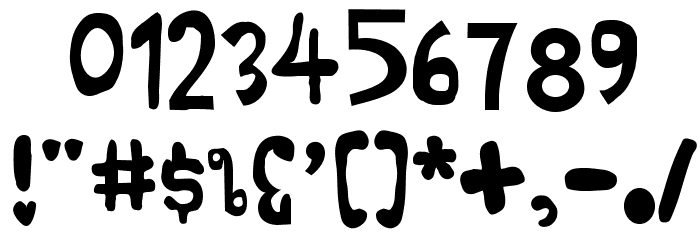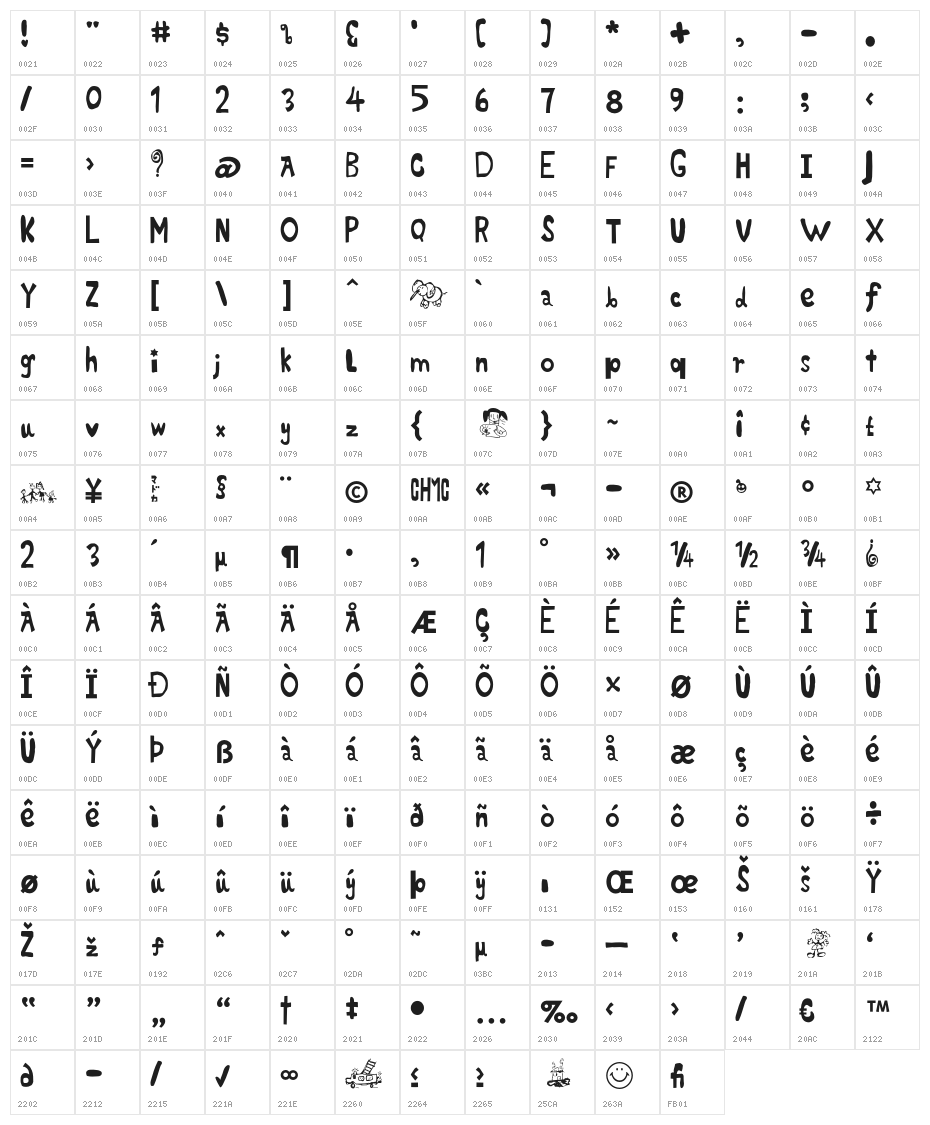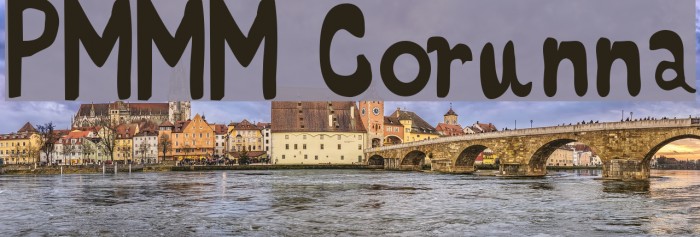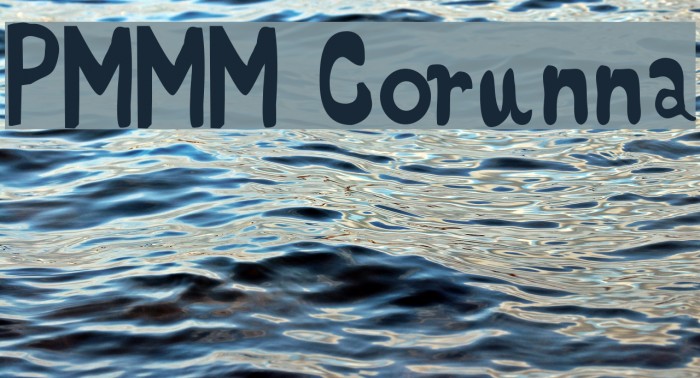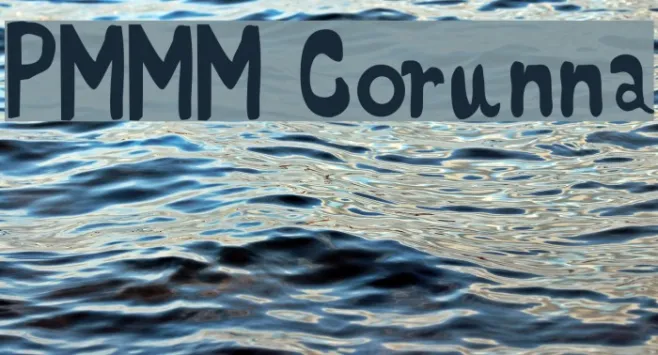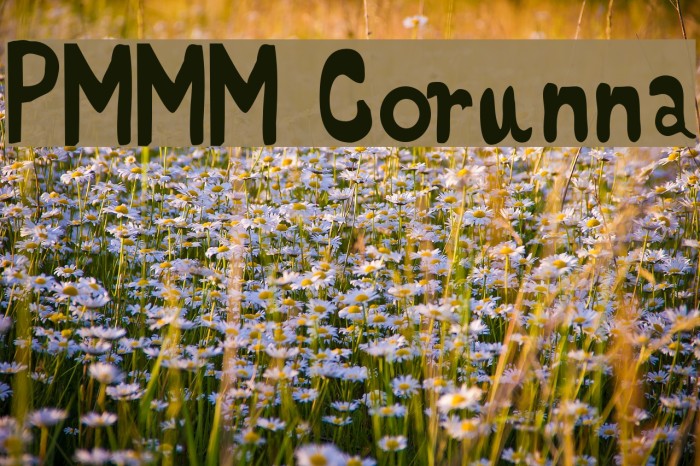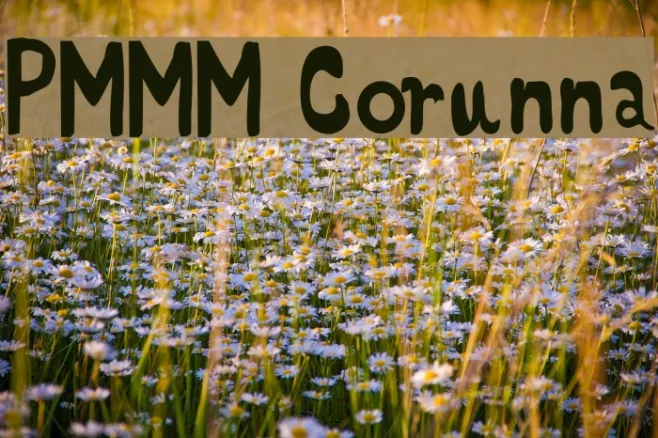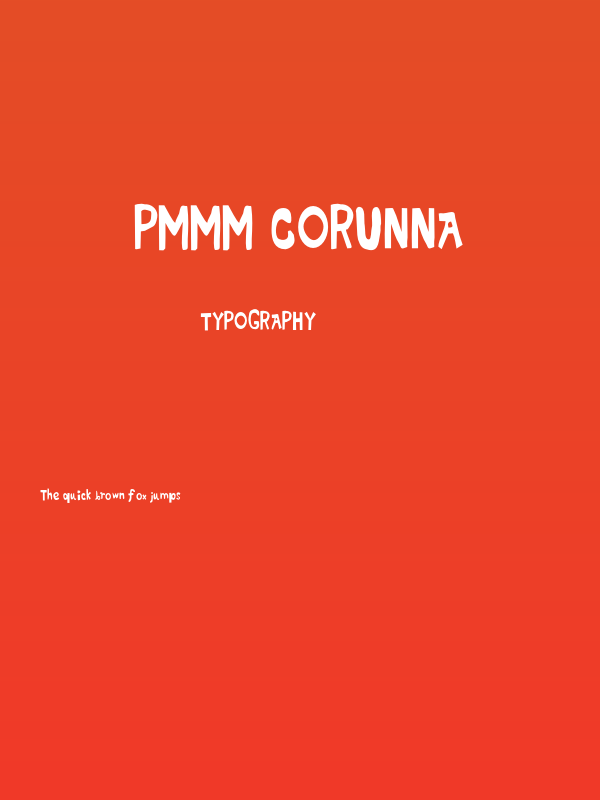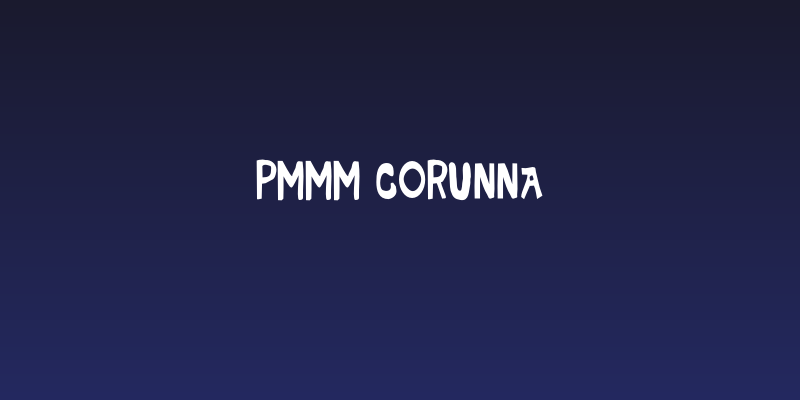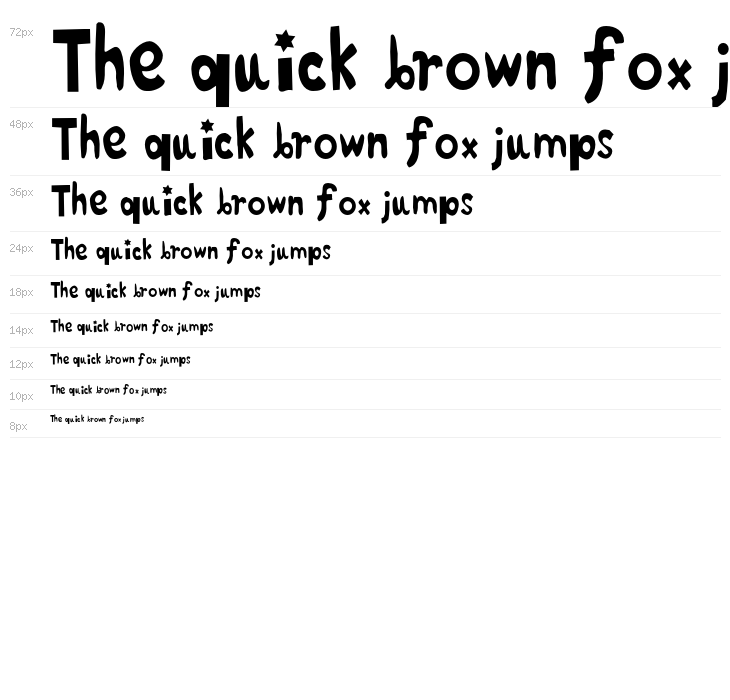
PMMM Corunna Font
PMMM Corunna Description
This playful and bold font features a quirky and irregular design, with each character exhibiting a unique and whimsical style. The letters are thick and rounded, giving a sense of fun and creativity. The uppercase and lowercase letters maintain a consistent weight, while the numbers and special characters follow the same playful theme. The font's uneven strokes and varied character shapes add to its charm, making it ideal for projects that require a touch of personality and flair. Its distinctive appearance ensures it stands out, making it suitable for eye-catching designs.
Overall StylePlayful
Proposed ProjectsIdeal for children's books, playful branding, party invitations, and creative posters.